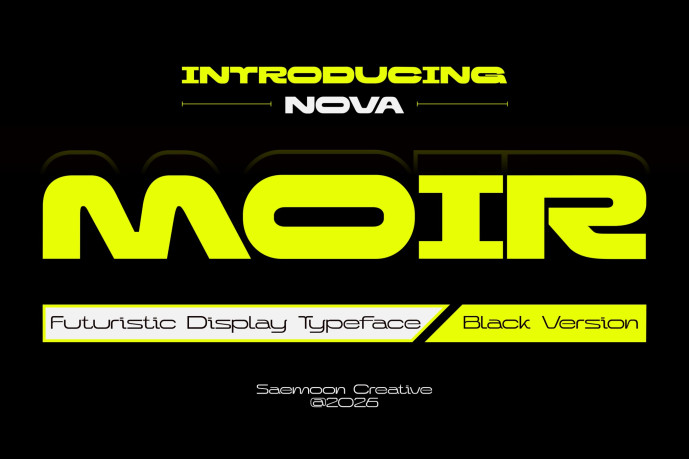
Nova Moir Font is a futuristic display typeface featuring bold geometric shapes and a modern techno-inspired design. Its distinctive letterforms create a strong visual impact, making it perfect for logos, headlines, posters, gaming, branding, and sci-fi themed projects.
Designed to deliver a sleek and innovative appearance, Nova Moir helps your designs stand out with a powerful futuristic character.